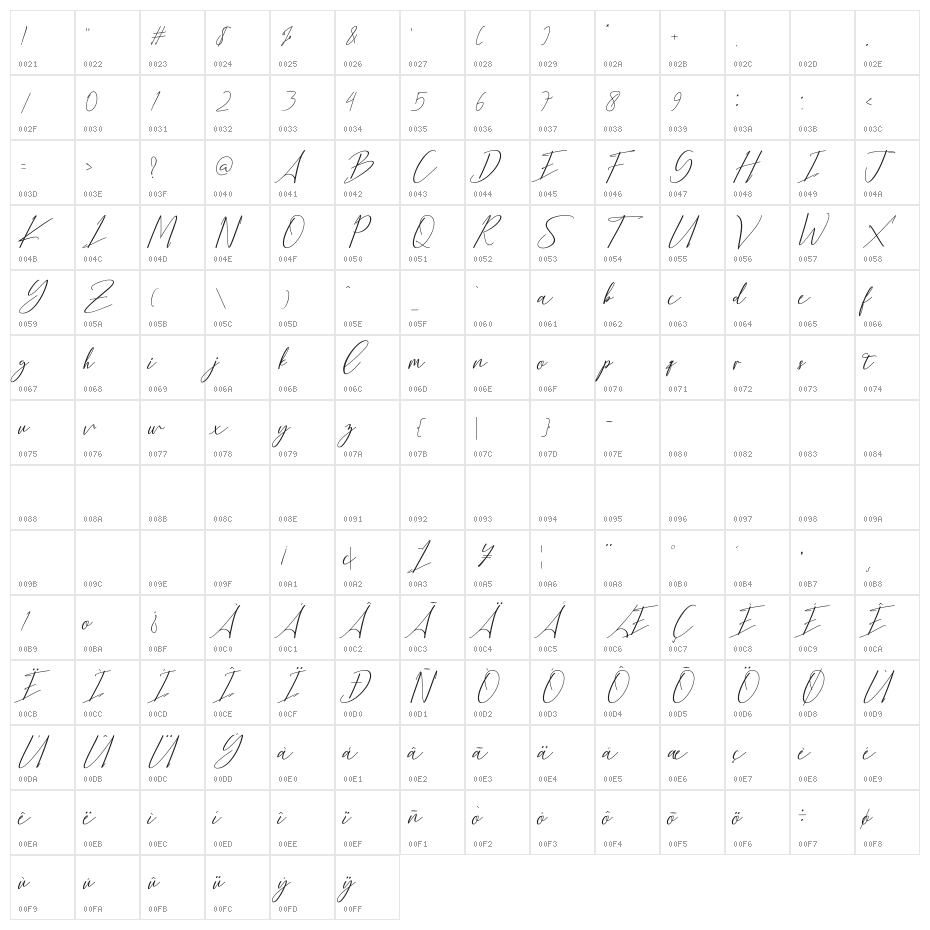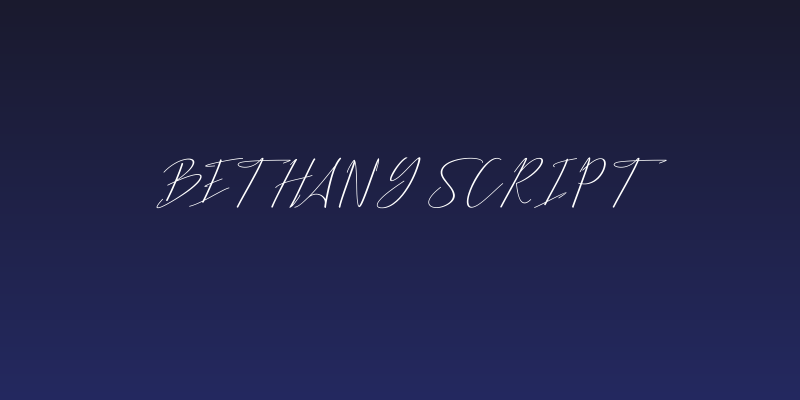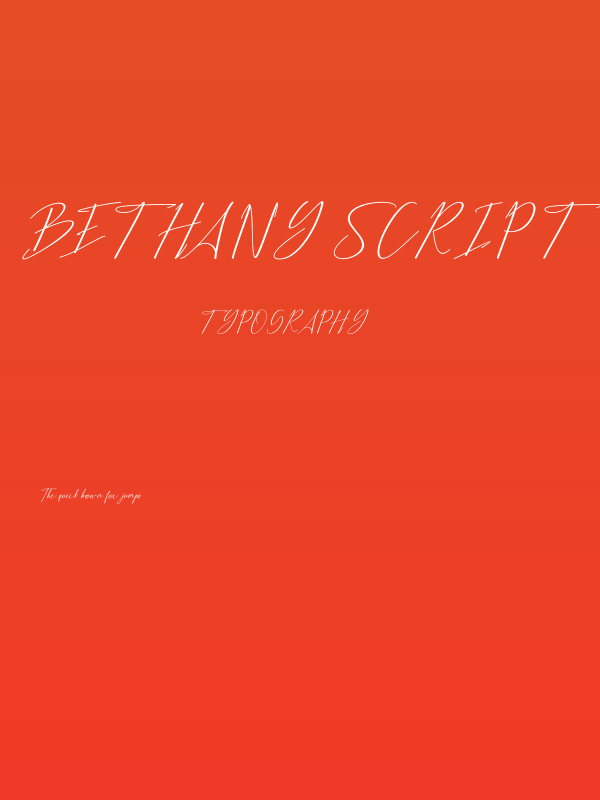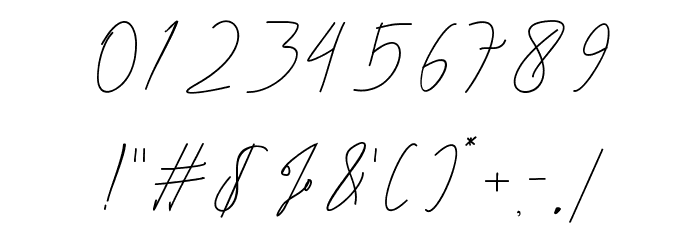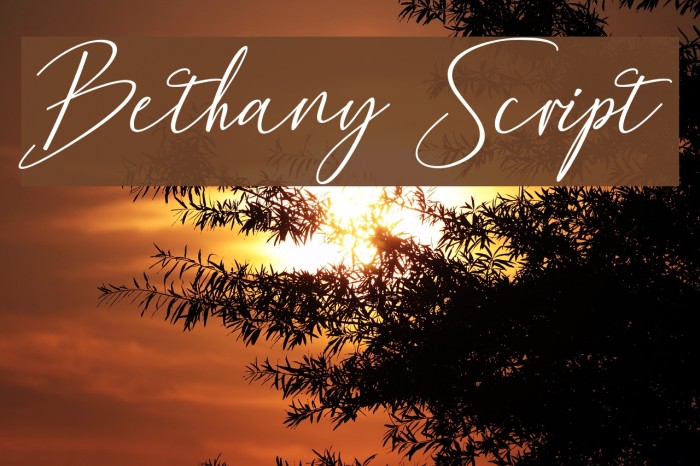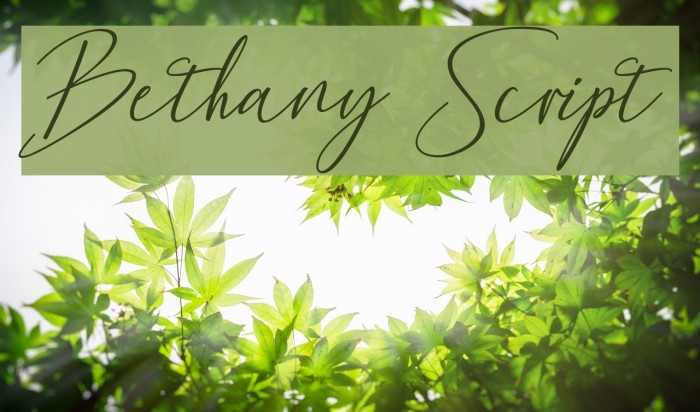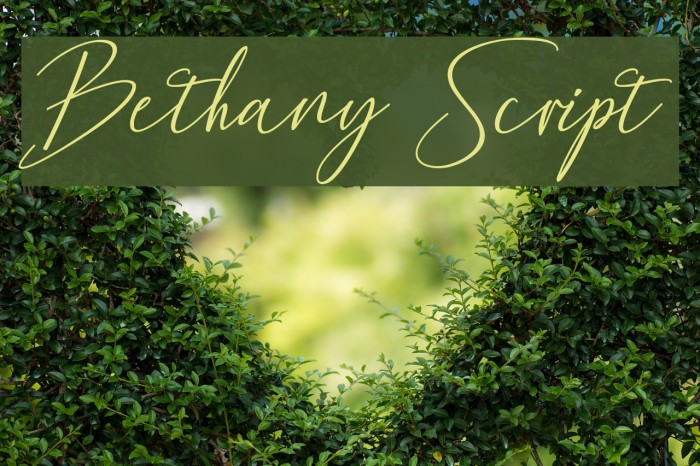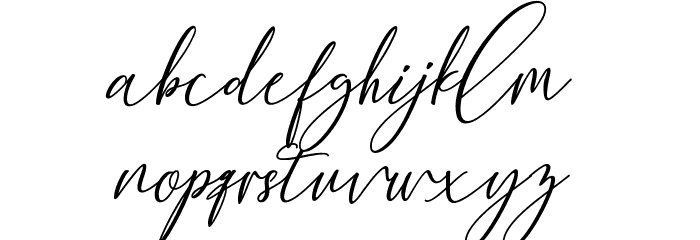
Bethany Script Font
Bethany Script Description
This elegant script font features a flowing, cursive style with a sophisticated and graceful appearance. The uppercase letters are tall and slender, with sweeping curves and delicate loops that give a sense of movement and fluidity. The lowercase letters maintain a consistent style, with smooth connections and a slightly more compact form. The numerals are designed to match the overall aesthetic, with a similar sense of elegance and refinement. Special characters are seamlessly integrated, maintaining the font's cohesive look. This font is perfect for adding a touch of class and sophistication to any project.
| Overall Style | Elegant, Sophisticated |
| Proposed Projects | Ideal for wedding invitations, elegant branding, luxury product packaging, and sophisticated event posters. |